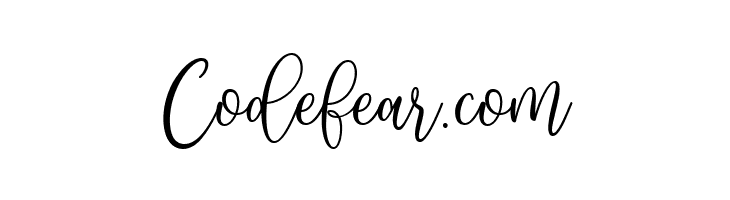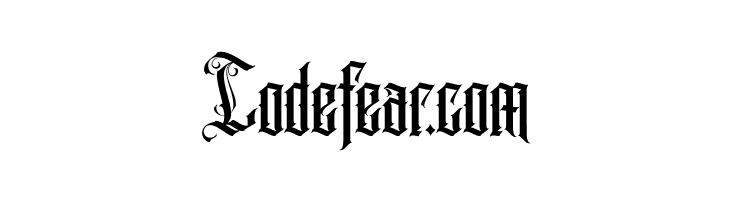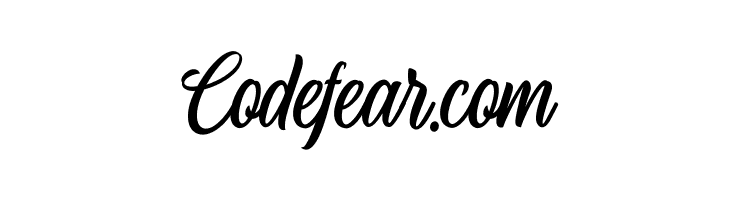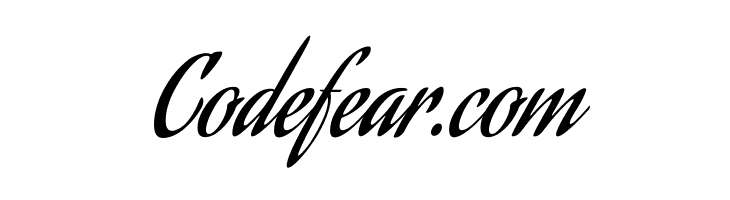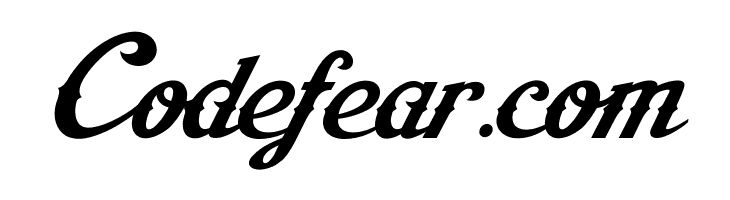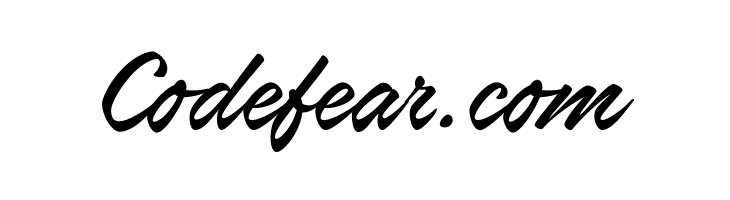
A flowing, elegant script font with ornate uppercase and harmonious lowercase letters.
An elegant and flowing script font with bold, cursive letterforms.
An elegant script font with fluid, cursive strokes and a sophisticated appearance.
An ornate and decorative blackletter-style font with intricate flourishes.
A bold, cursive script font with elegant loops and a natural flow.
A fluid and elegant script font with dynamic cursive letterforms.
A bold, cursive font with decorative swirls and high contrast.